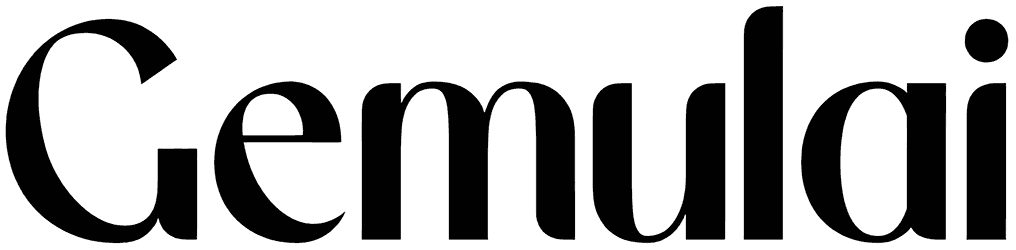
Gemulai Font
Prepare yourself to be completely entranced with the ongoing wonders of Gemulai, as it revolutionizes your typography with its chic style. You’ll find it extremely practical in designing the packaging of beauty products, café menus, and fabric stores. Basically, anywhere you need a stylish sans serif font, Gemulai fits the bill.
Let’s hope you’re not going to need any letters to take advantage of the artistic touch of this modern font in your designs because Gemulai isn’t packing any digits.